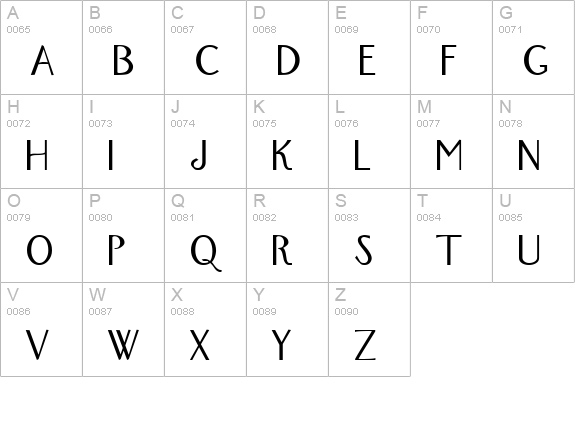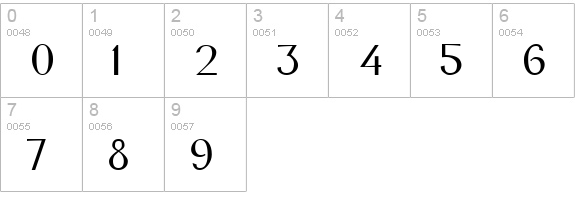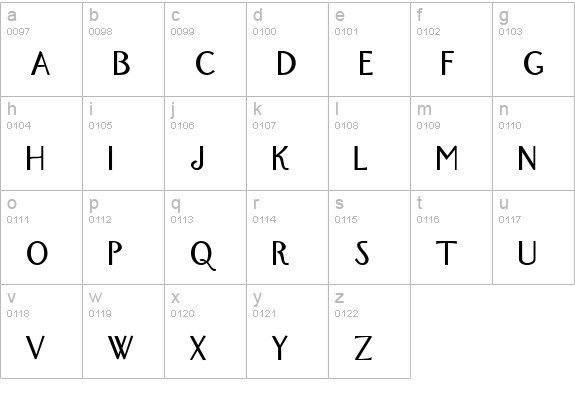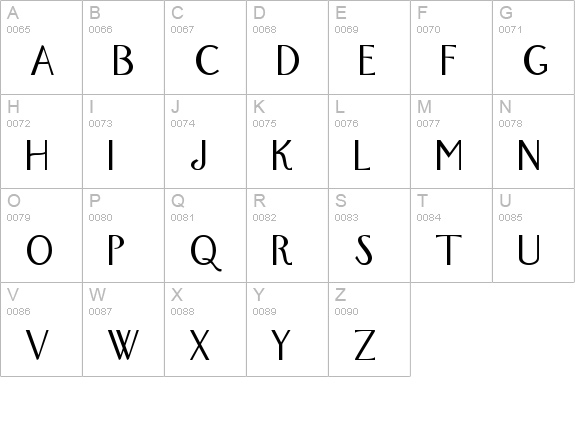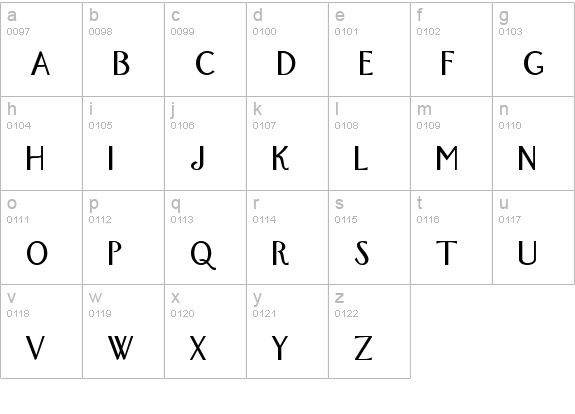
New York Normal is the standard, neutral variant in the New typeface family \xE2\x80\x94 well suited to general body text, paragraphs, and standard typographic work.
New York Normal font is a versatile and modern typeface that exudes elegance and sophistication. With its clean lines and classic design, this font is perfect for a wide range of projects, from professional documents to creative designs. Its balanced proportions and timeless aesthetic make it a popular choice for designers and creatives looking to add a touch of sophistication to their work. What's even better is that New York Normal font is available for free download at FontsMarket.com. You can easily access this stylish font and incorporate it into your projects without any cost. Whether you're working on branding materials, invitations, or website design, New York Normal font is sure to elevate your work with its refined appearance and effortless style. Download it today and add a touch of elegance to your designs!